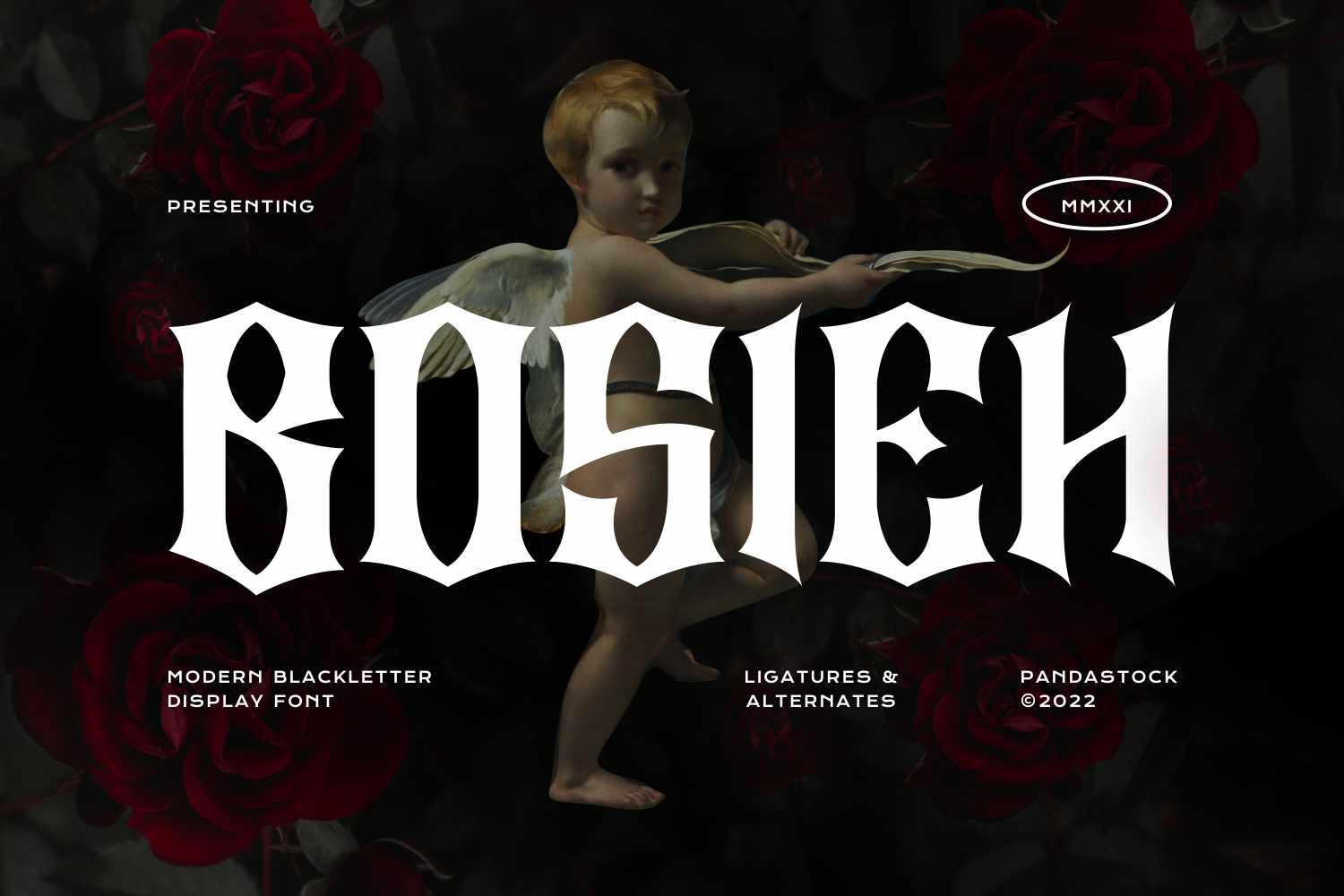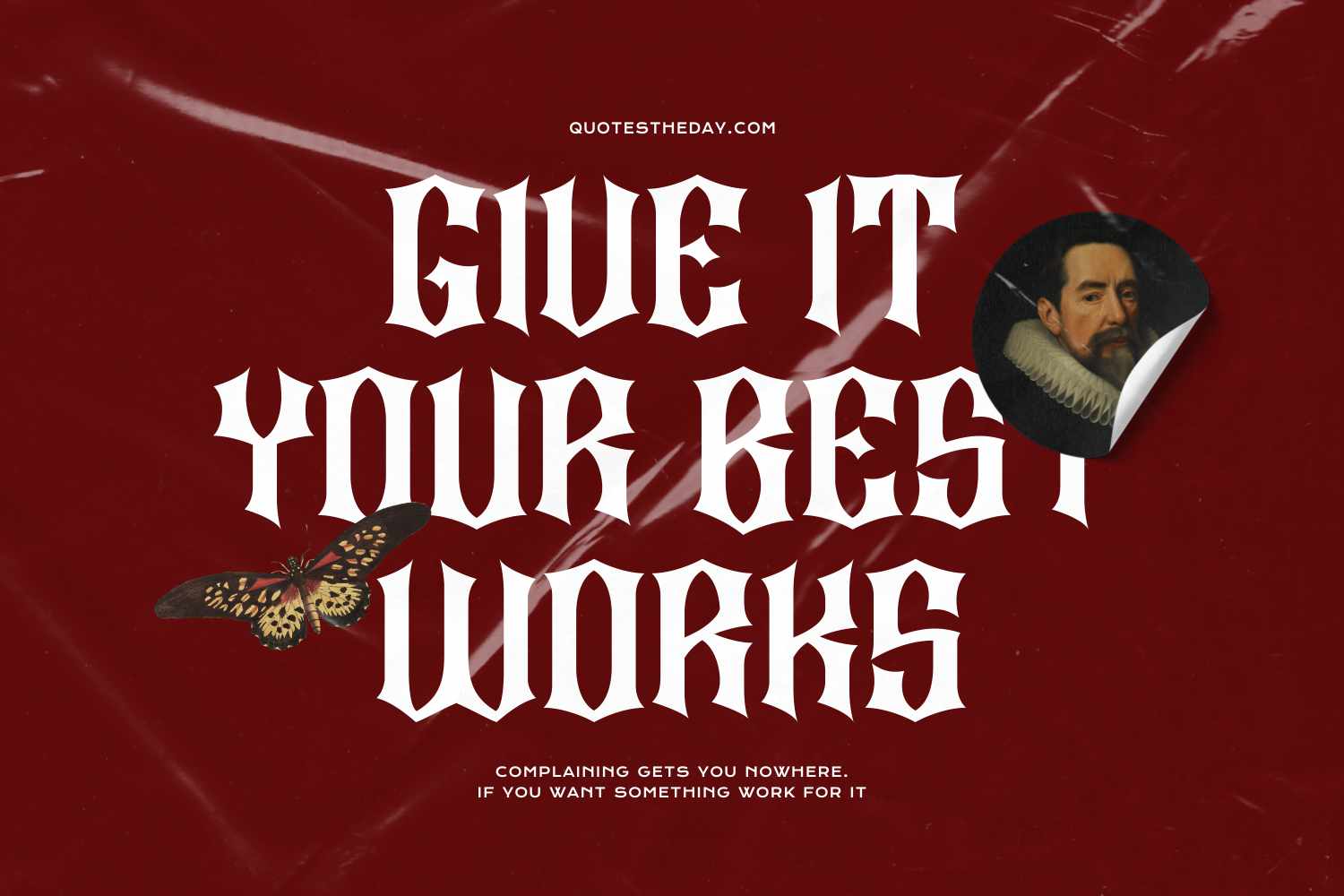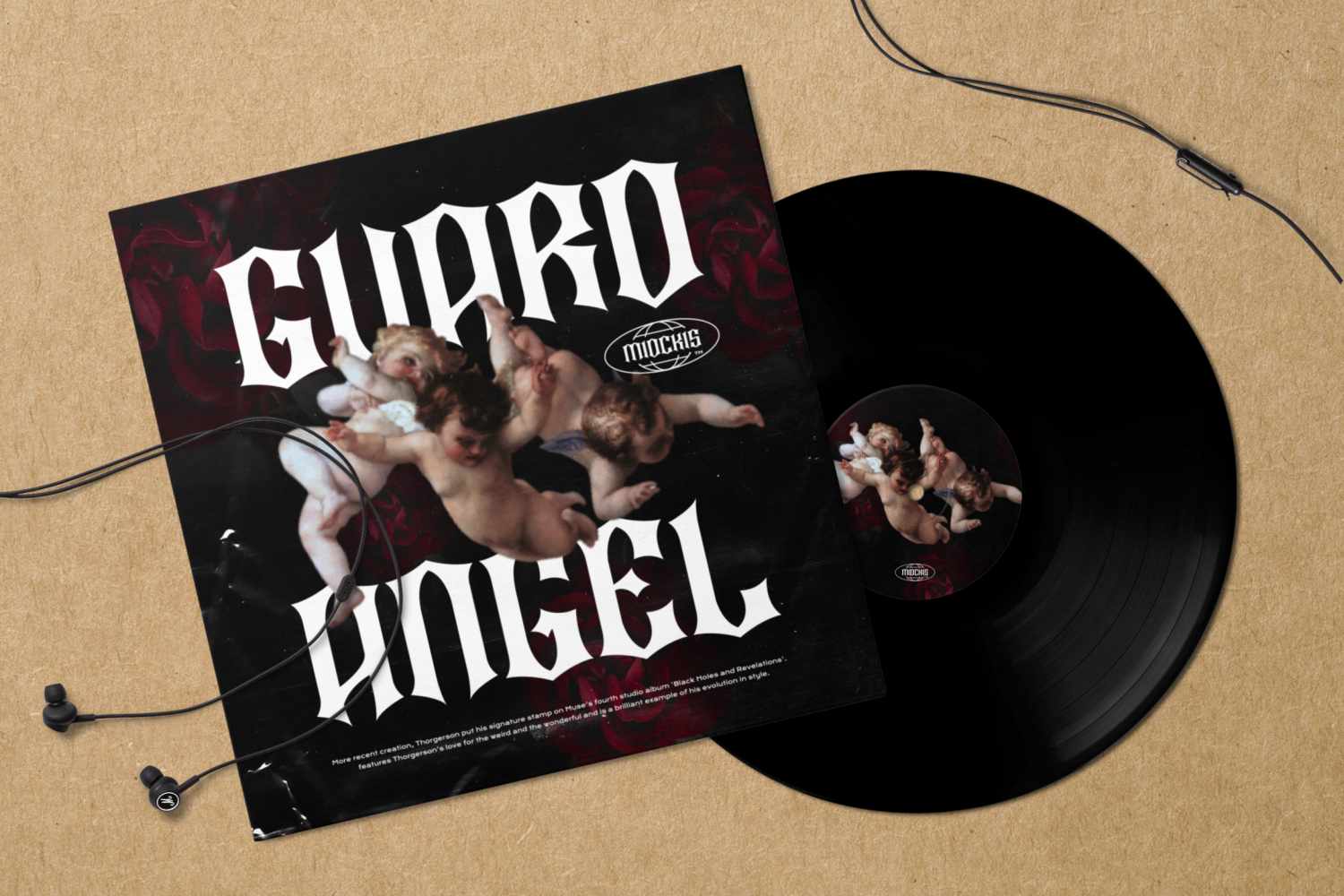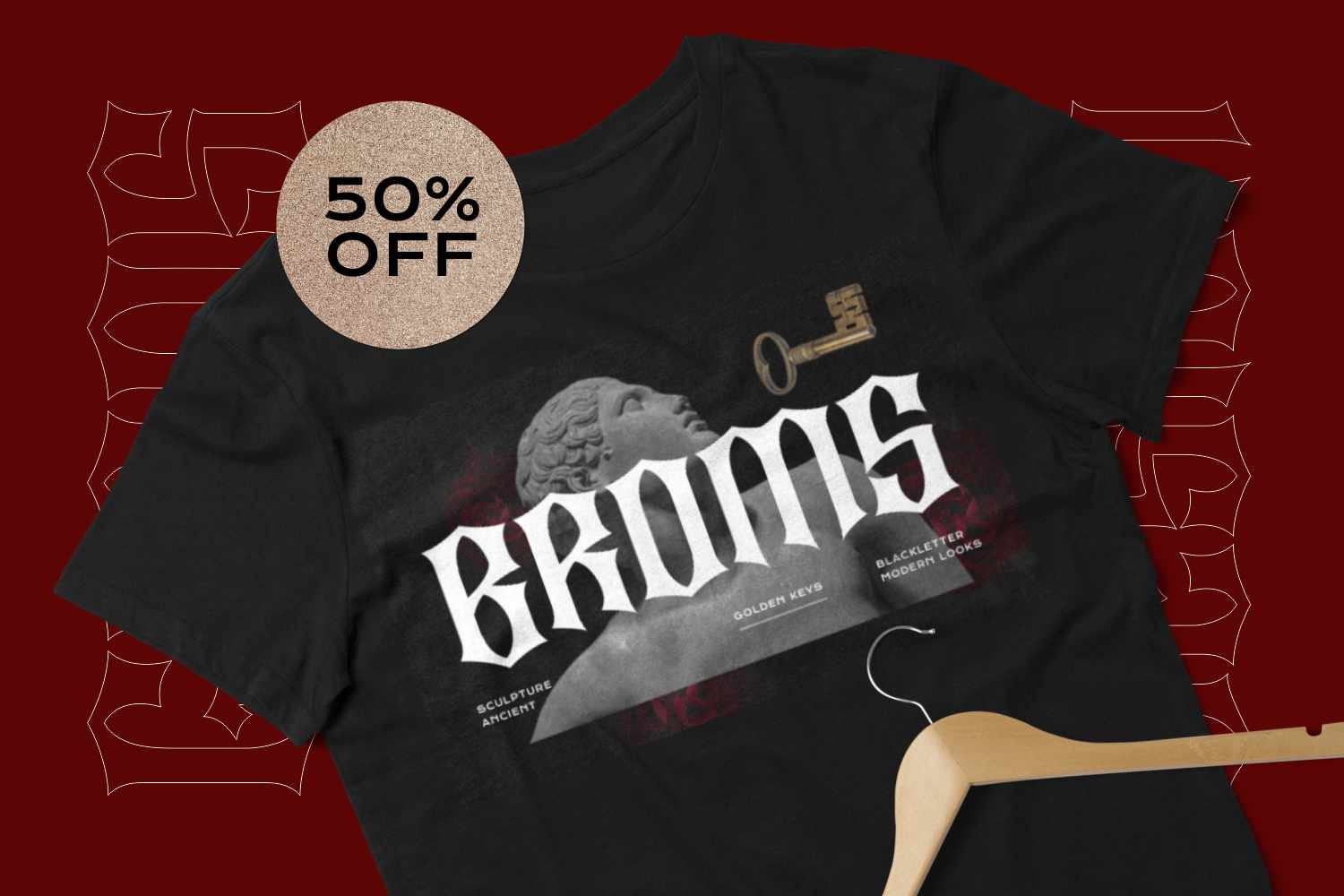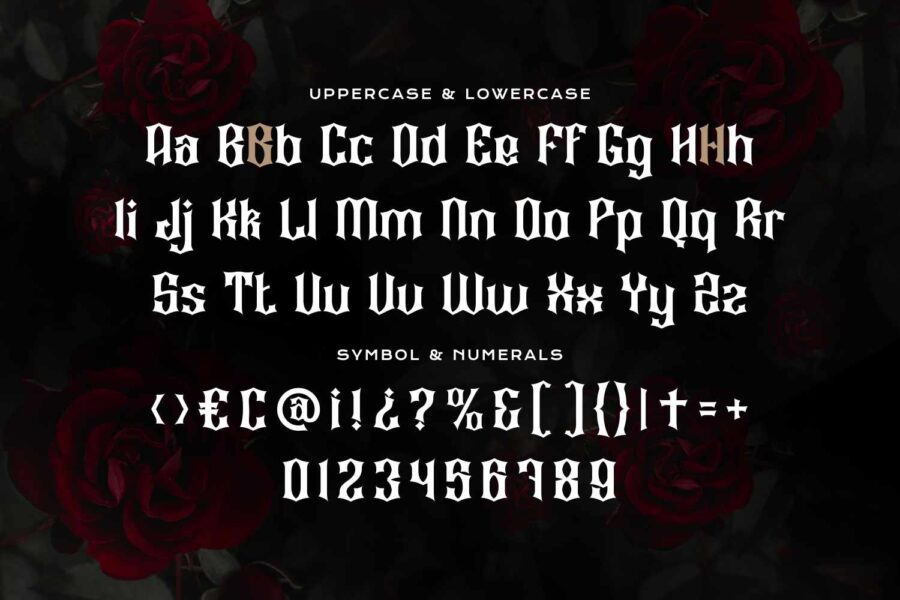
Bosieh is a modern blackletter display font that blends gothic tradition with contemporary design. Its sharp edges, dramatic strokes, and bold letterforms create a strong and powerful presence, perfect for projects that need an intense and striking visual identity. The addition of ligatures and stylistic alternates makes it flexible for both classic and experimental compositions.
Ideal for album covers, apparel designs, posters, branding, and editorial layouts, Bosieh delivers a dark yet stylish character that resonates with both modern and vintage aesthetics. Whether you’re creating a bold fashion identity, music artwork, or statement typography, Bosieh adds depth, attitude, and elegance to every design.
Bosieh